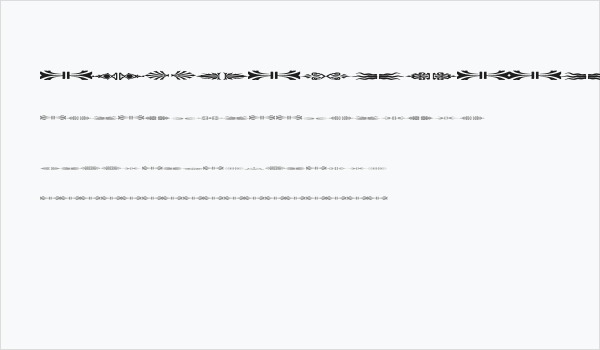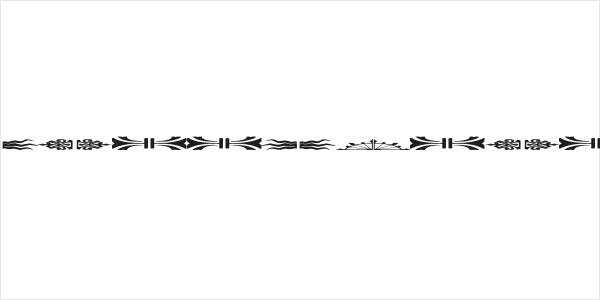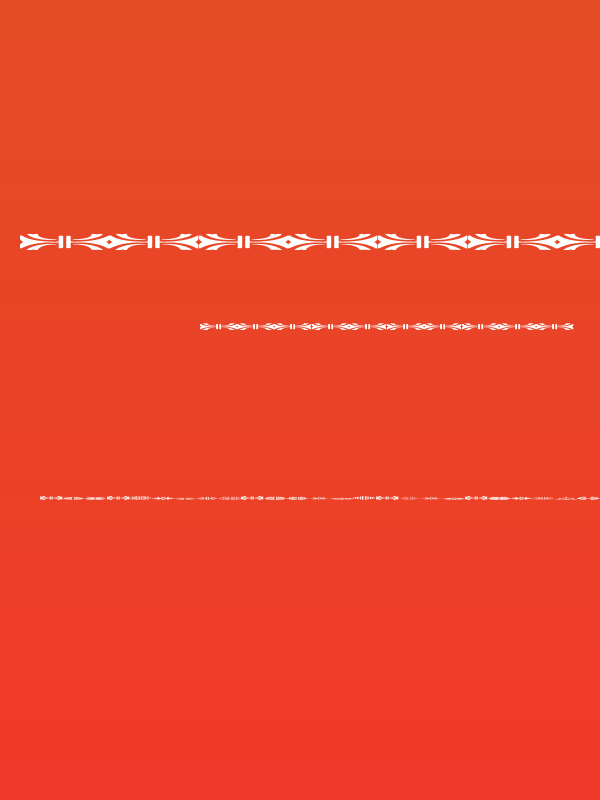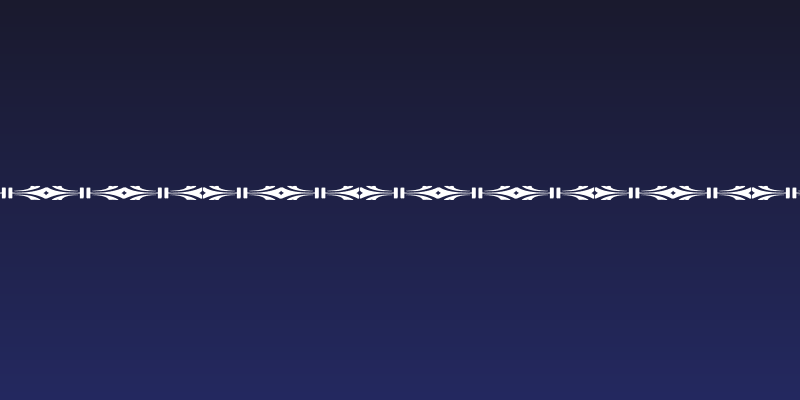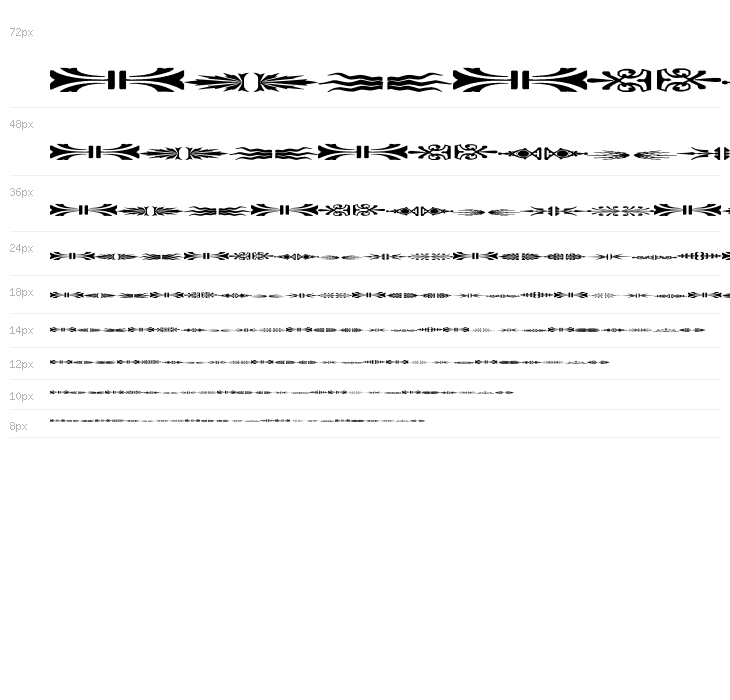
Sughayer Separates 13 Font
Sughayer Separates 13 Description
Ornamental decorative separators featuring symmetrical, intricate flourishes and geometric motifs, designed as horizontal dividers rather than alphanumeric characters.
Overall StyleVintage, Ornamental, Decorative
Use CaseDividers, Borders, Decorative accents
Proposed ProjectsInvitations, certificates, book chapter dividers, menus, vintage-themed designs.